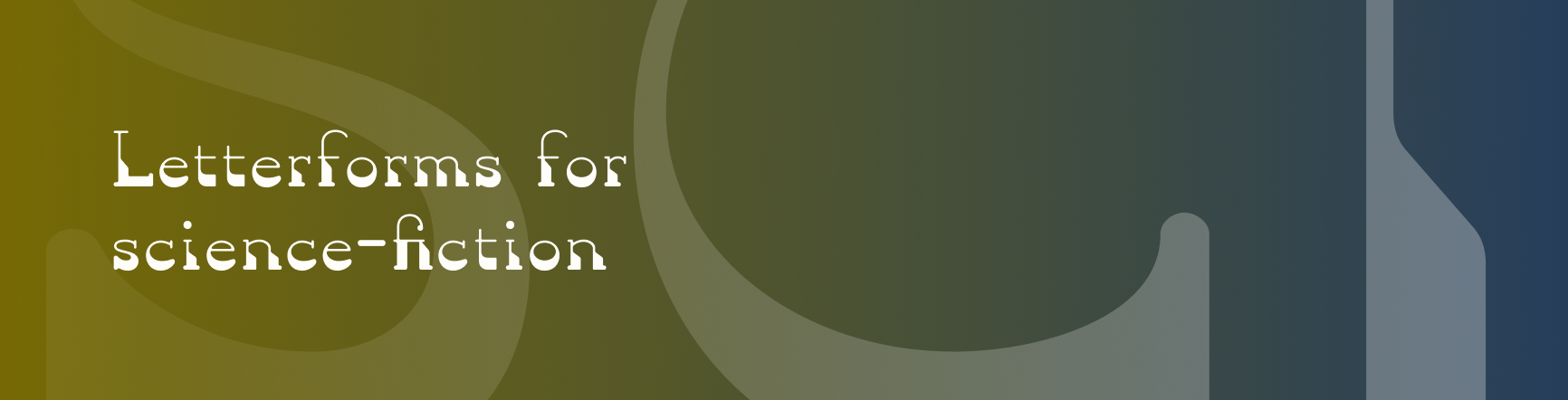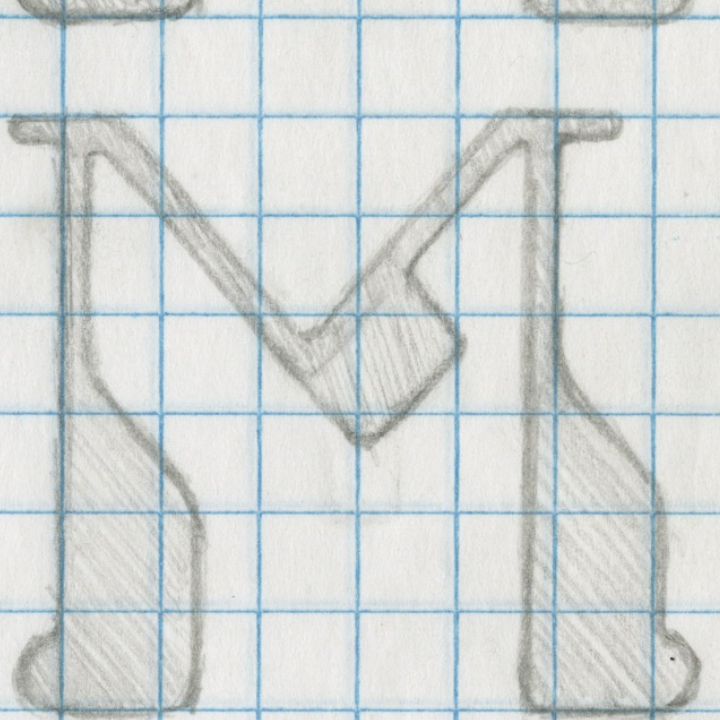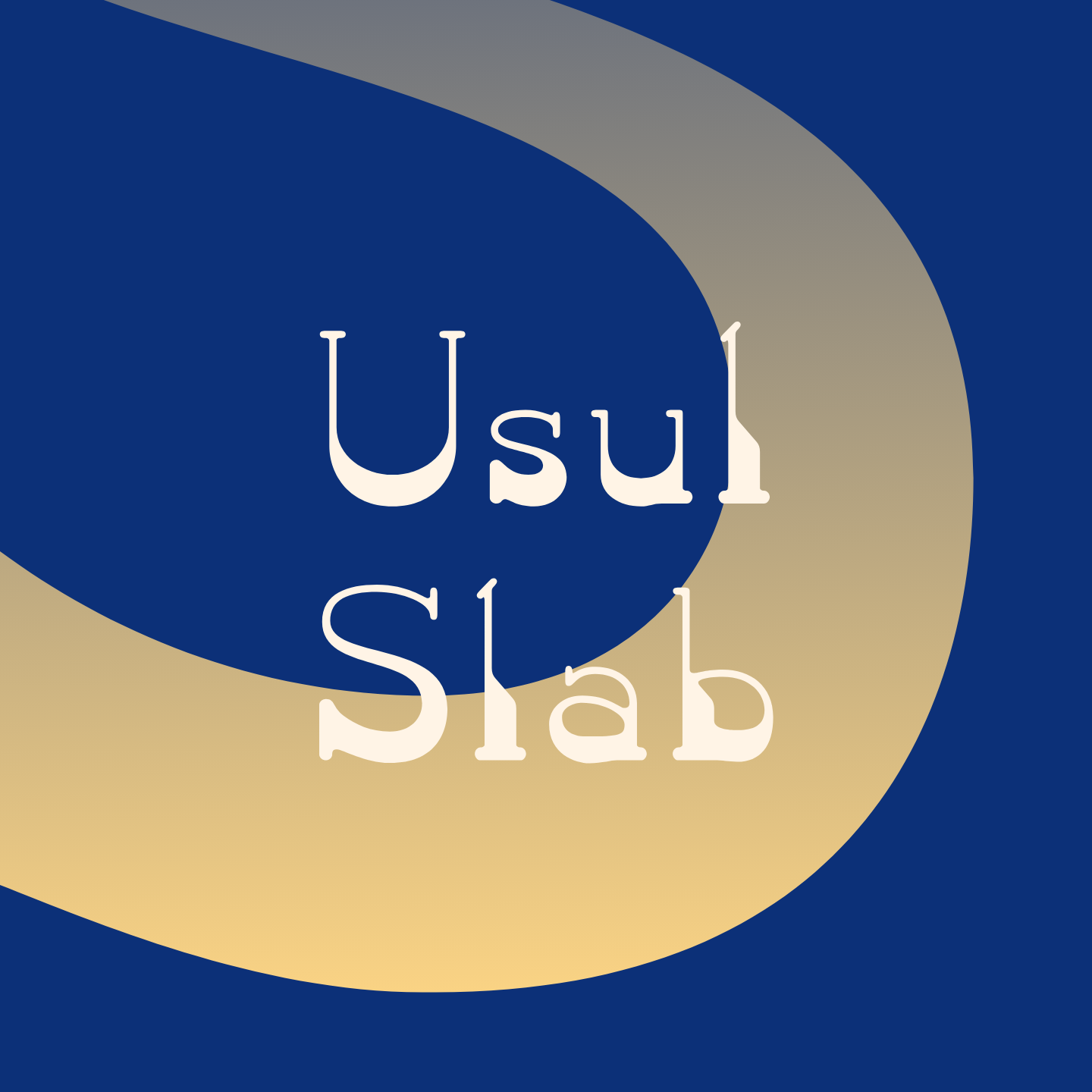
The letterforms of Usul Slab feature light weight tops and heavy bottoms. It was inspired by Frank Herbert’s Dune series and of the mid-century science fiction paperbacks in which they came. Usul slab was created by Tyler Jamieson Moulton in his senior year Advanced Letterform class taught by Mark Jamra.